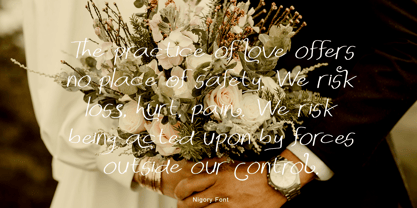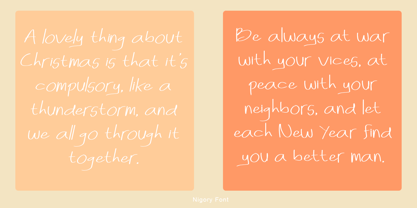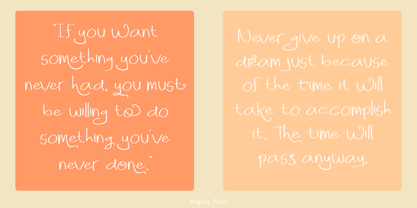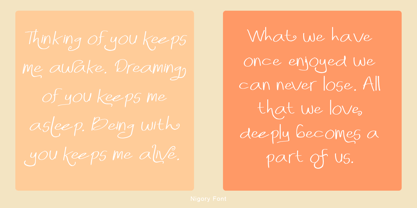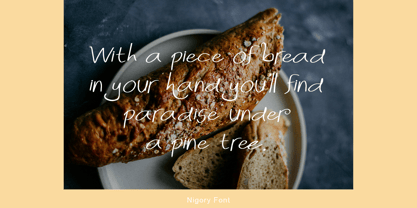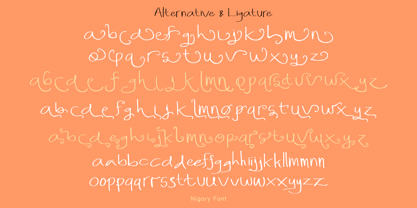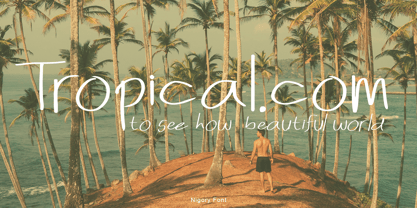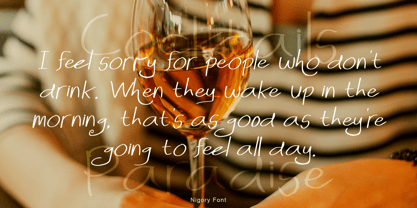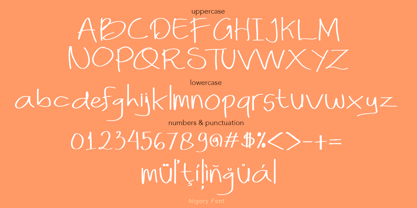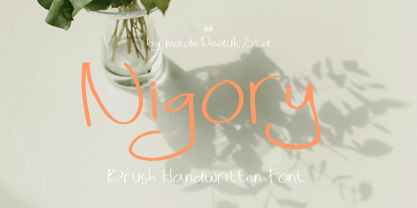
Nigory
by madeDeduk
The Nigory Font Family was designed by madededuk and published by madeDeduk. Nigory contains 2 styles and family package options. More about this family
Introduce Nigory is a brush handwritten font to give an incredible impression for all your project design come with a lot ligatures and Alternative to make everything look realistic handmade handwritten. This font perfect for poster design, book covers, merchandise, fashion campaigns, newsletters, branding, advertising, magazines, greeting cards, album covers, and quote designs and more.
Designers: madededuk
Foundry: madeDeduk